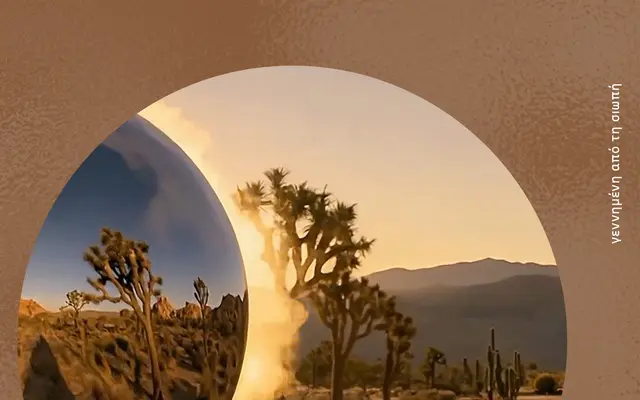
Sukoon
A multi-script typeface by Jan 'Yanone' Gerner grown over ten years from a single letterform drawn during a moment of stillness in a forest cabin.
Born from a single letter found rather than designed, Sukoon spans ten weights from Thin to ExtraBlack and covers Latin, Arabic, Greek and Cyrillic scripts. The Arabic integration feels central rather than supplementary, reflecting the word 'sukoon' itself, a term for tranquility and a diacritical mark denoting a vowelless consonant in Arabic script. The result is a typeface with an unusually consistent voice across very different writing systems.
Sukoon appears to be a humanist sans-serif with broad Latin and Arabic script support, characterised by organic clarity and warmth consistent with humanist design principles.